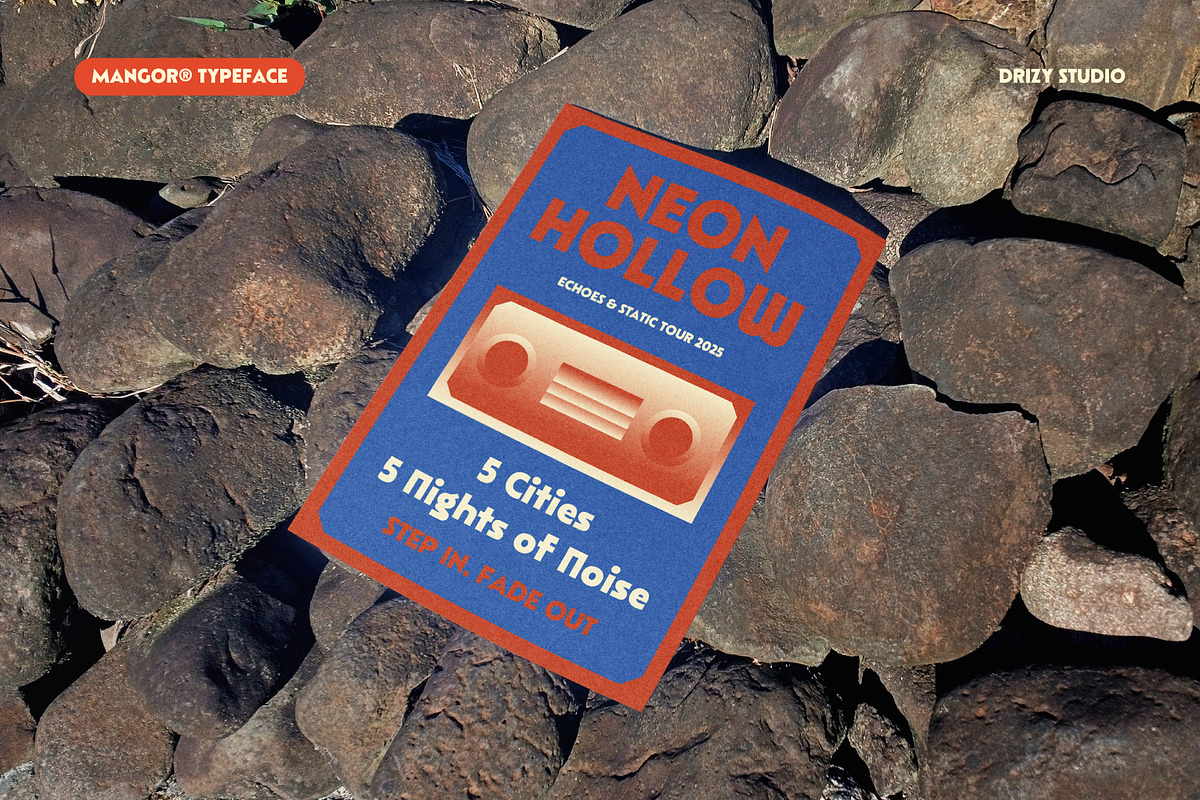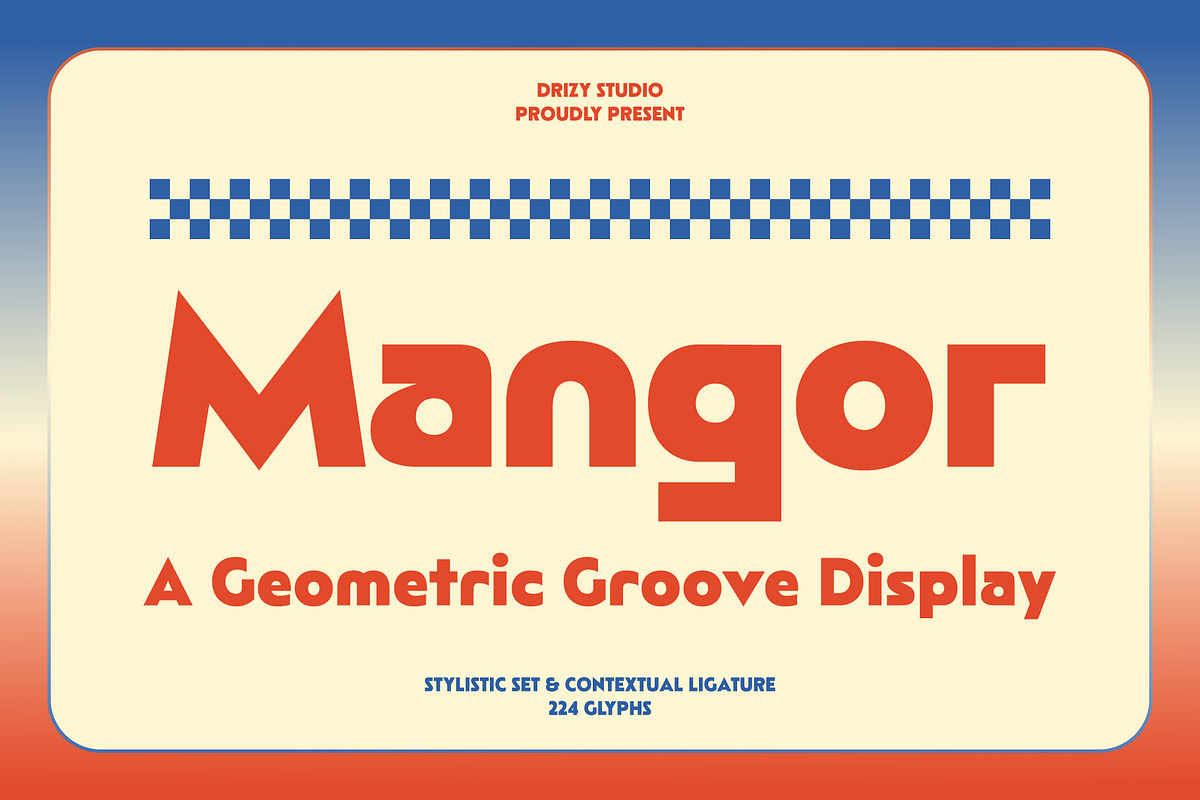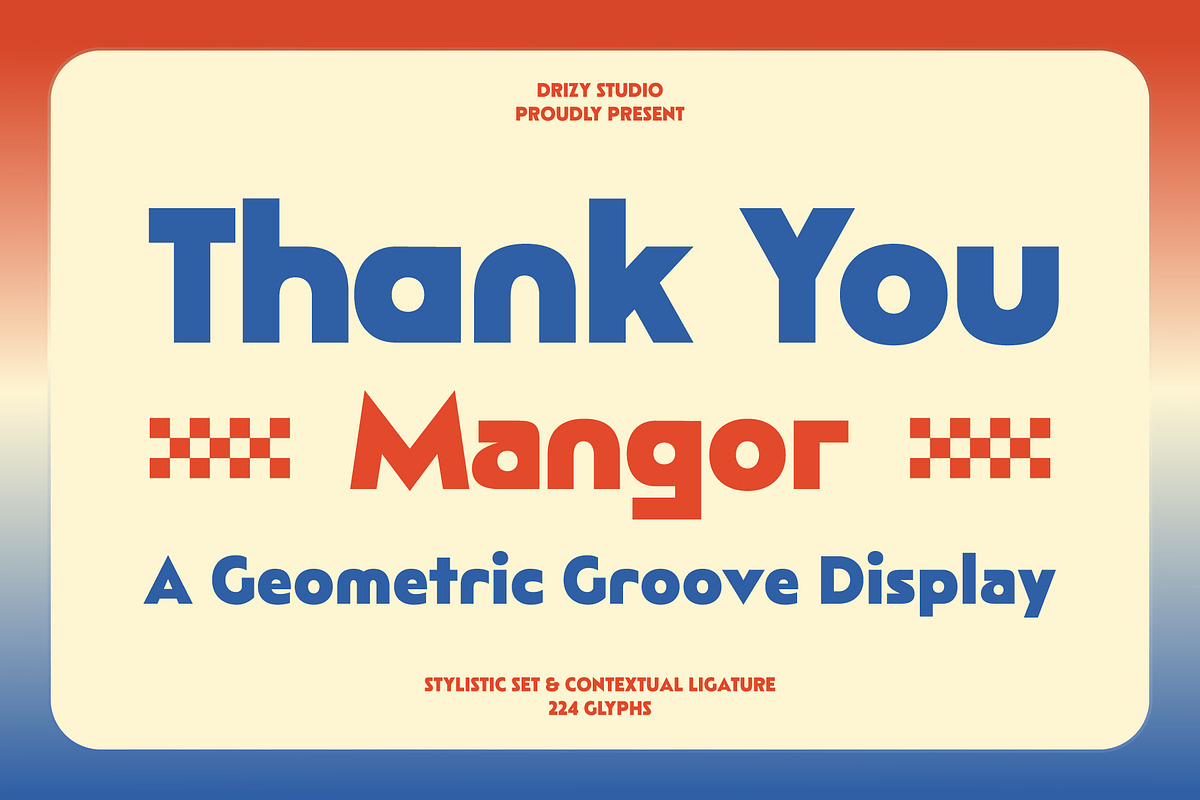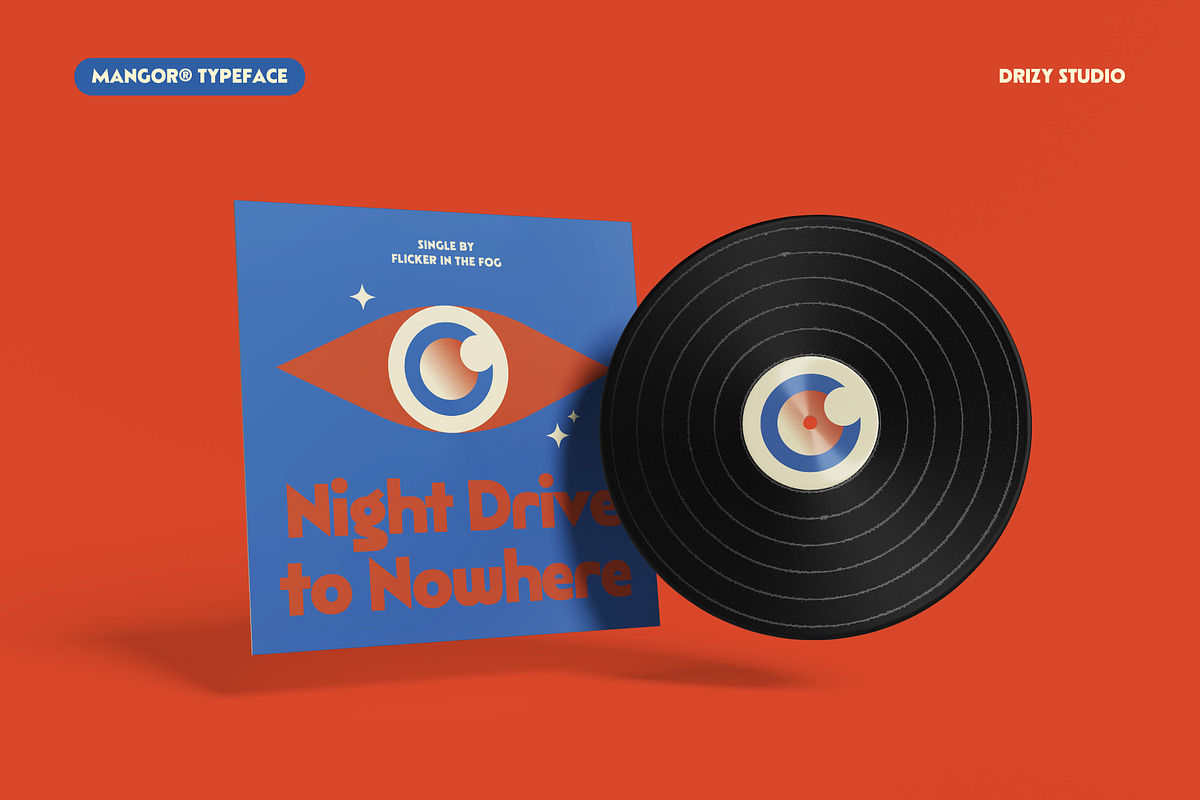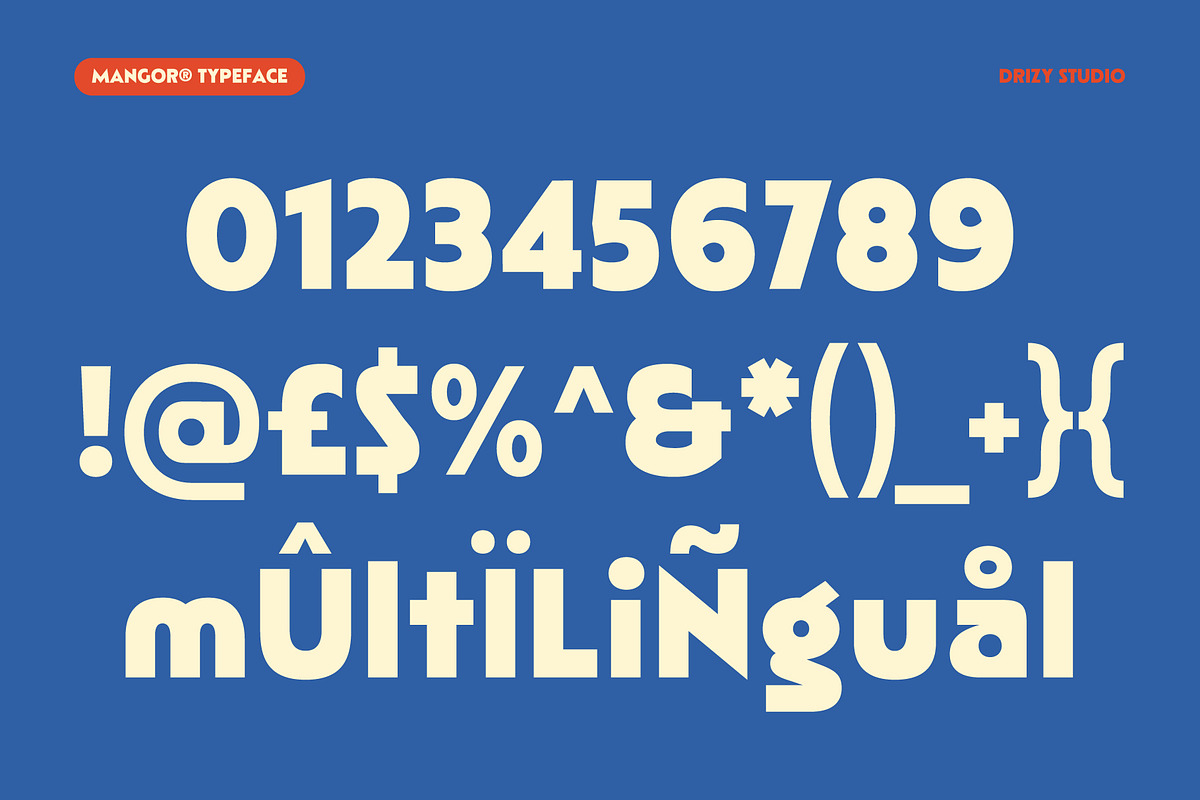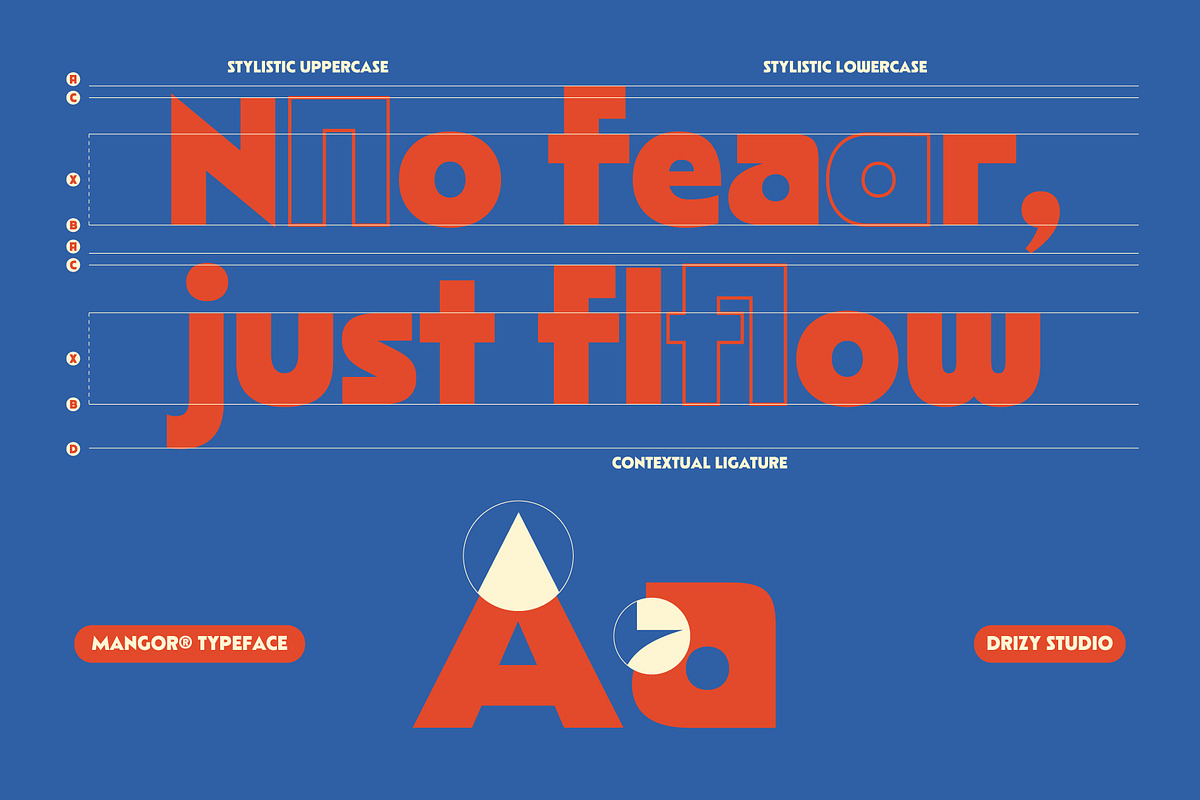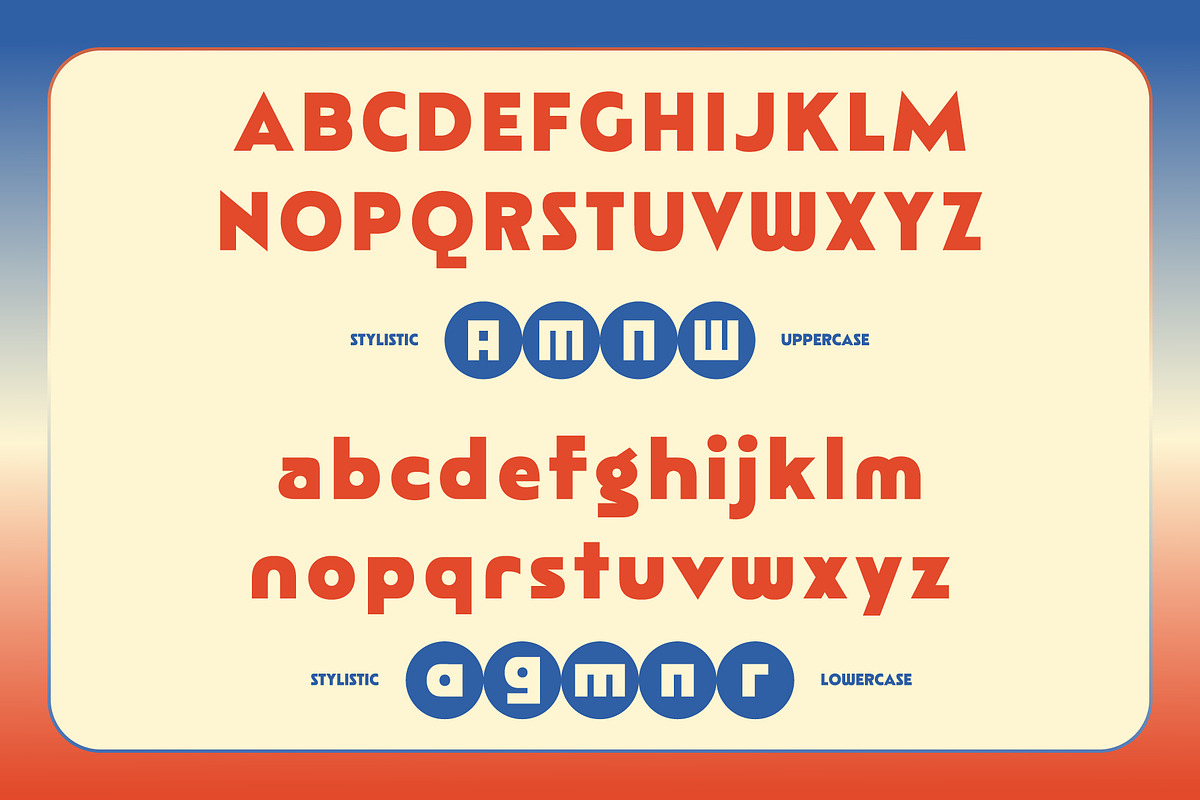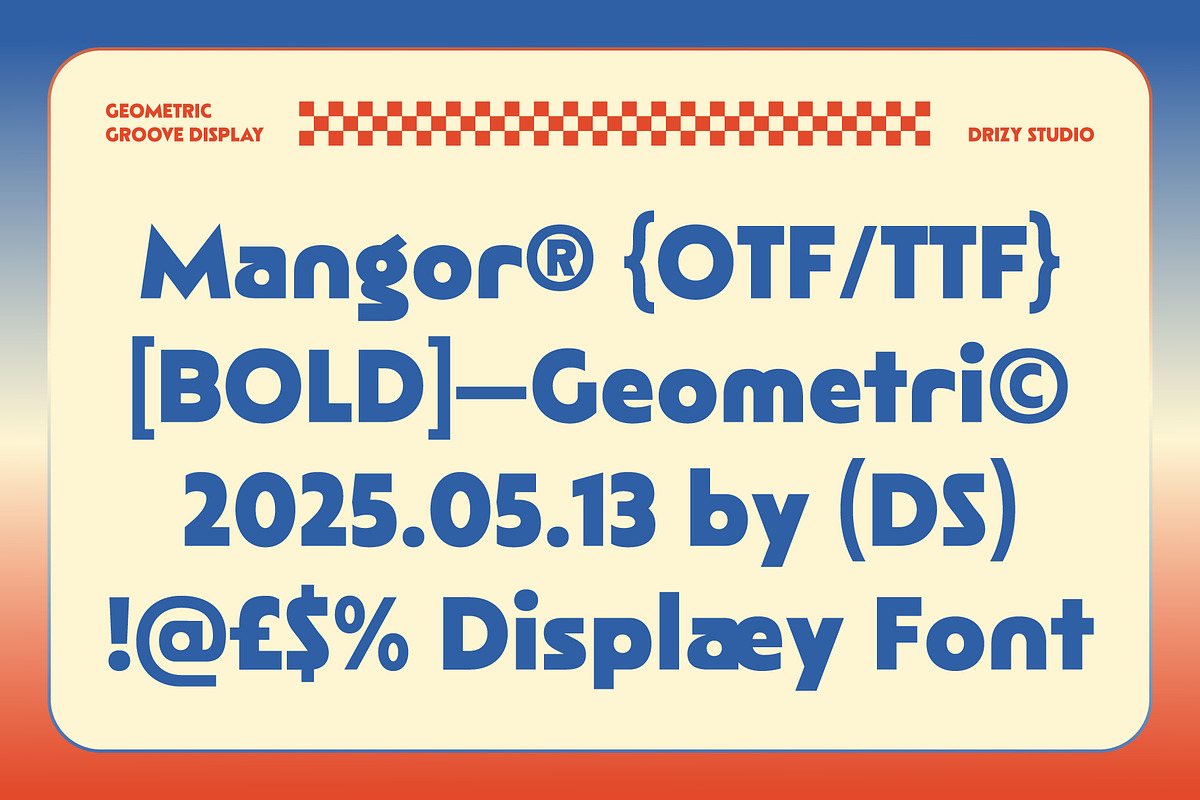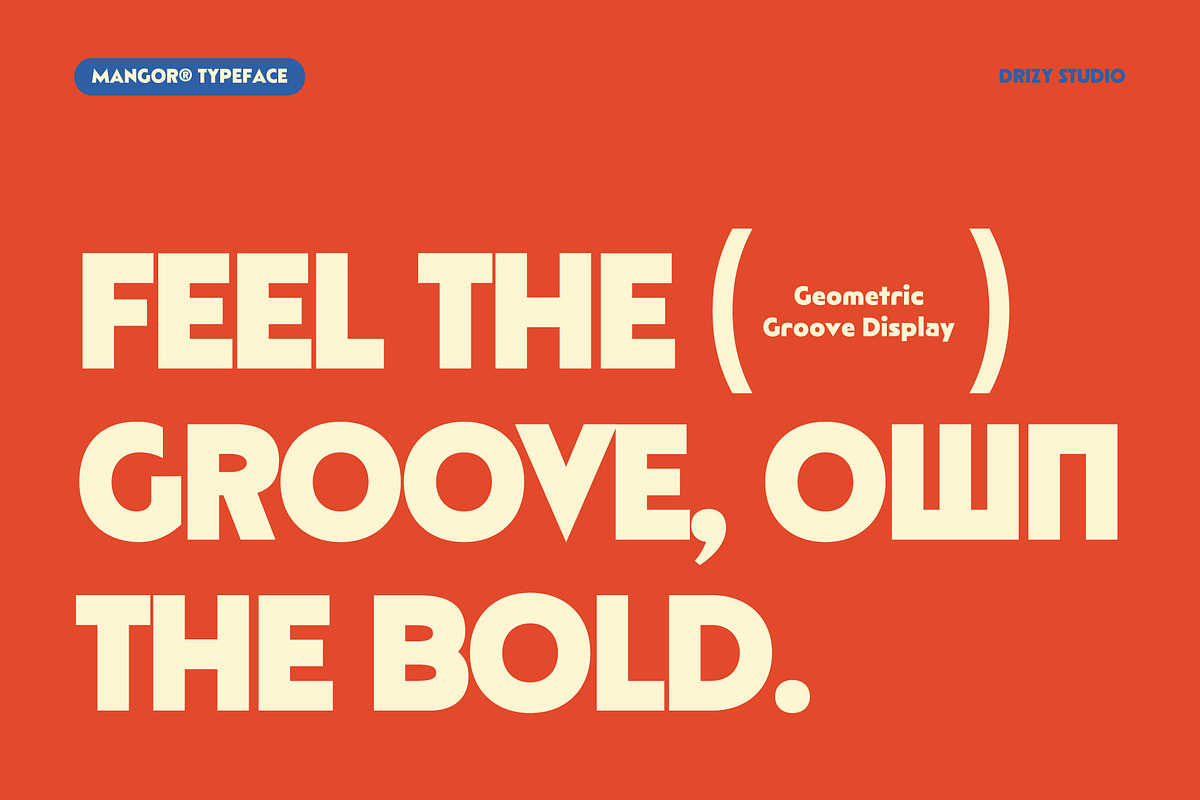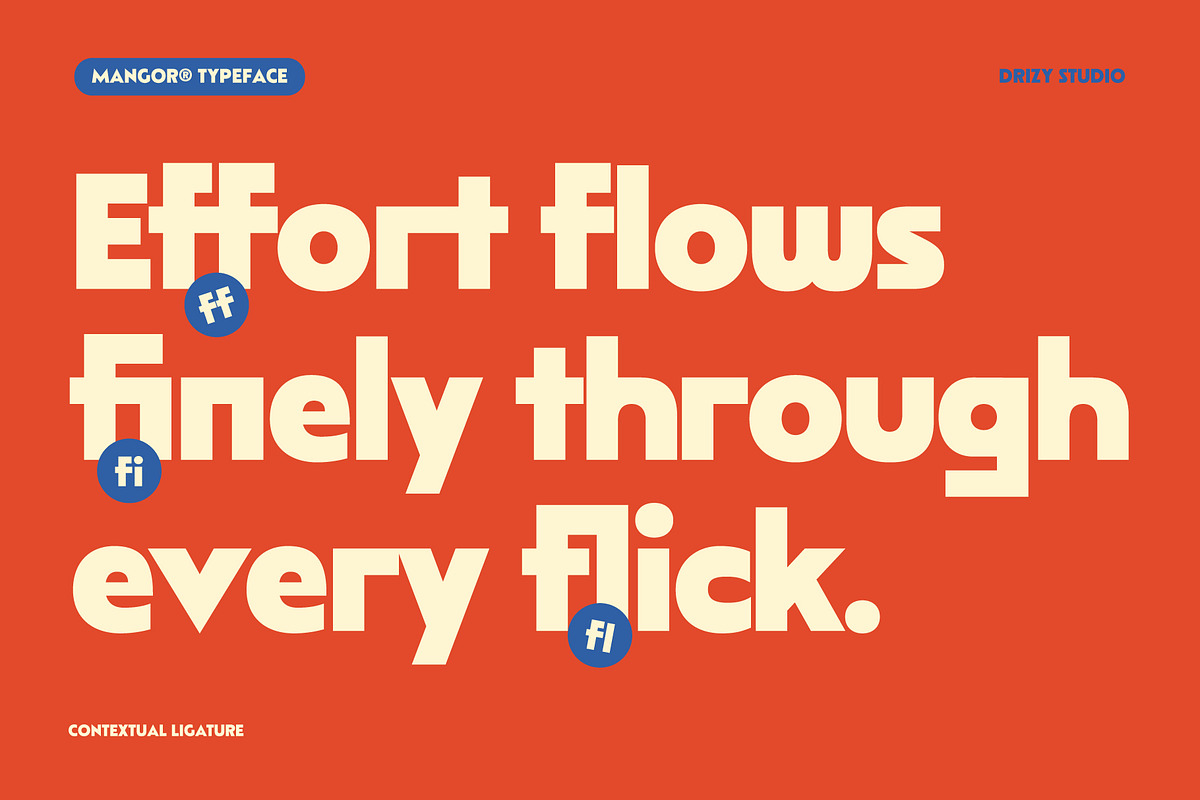
Mangor – Geometric Groove Display
Mangor – Geometric Groove Display Font
Mangor – Geometric Groove Display Font is a bold typographic dancefloor where geometry meets groove. With its clean, angular lines and rhythmic curves, Mangor pulses with retro futuristic energy, perfect for designs that demand attention and movement. Inspired by the vibrant aesthetics of 70s Geometric Disco and the precision of modern minimalism, this display font bridges eras with confident charm. Step into the spotlight, Mangor brings the beat and ready to groove.